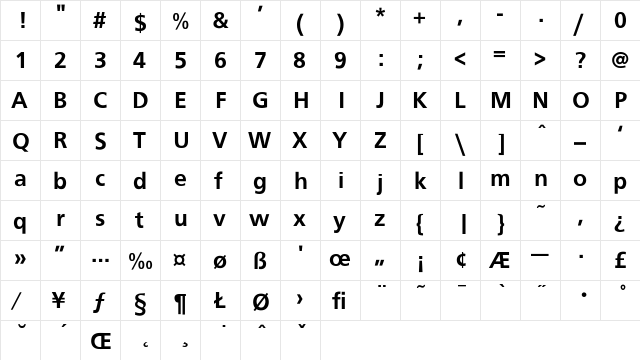
Noisty-Bold Regular
Design Context for Noisty-Bold Typeface
Noisty-Bold offers clean, dependable letterforms without strong stylistic allegiance, making it a practical choice for designers who need flexibility. The heavy weight commands attention and anchors typographic hierarchies.
Pro Tip: Use Noisty-Bold in both headline and body roles to test its range before committing to a single application.